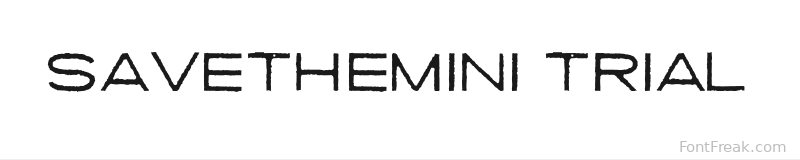
SAVETHEMINI-TRIAL
The SAVETHEMINI-TRIAL font, created by Billy Argel Fonts, is a distinctive display typeface that captures attention with its unique character. This font exemplifies a bold, decorative style characterized by a rough, hand-drawn appearance that evokes a sense of creativity and spontaneity. The uneven stroke weights and textured edges give it a dynamic quality, making it perfect for projects that aim to stand out. The spacing is well-balanced, allowing for easy readability while retaining its artistic flair.
Ideal for a variety of applications, the SAVETHEMINI-TRIAL font shines in contexts such as wedding invitations, where its whimsical nature can add a personal touch. It is also well-suited for movie posters, where the edgy design can draw viewers' interest. Additionally, the font works beautifully on restaurant menus, providing a fun and inviting atmosphere for diners. Small business owners looking to create memorable branding will find this typeface invaluable for logos or promotional materials, appealing to a broad audience.
What sets the SAVETHEMINI-TRIAL font apart is its ability to combine artistic expression with practical usability. The font's unique charm and versatility make it a standout choice for anyone seeking to make a lasting impression, ensuring that your designs will not go unnoticed.